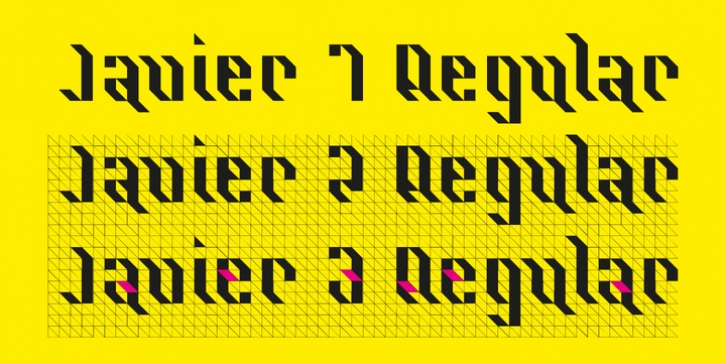
Ps Javier downloadDesigner: Peter Slager
Publisher: Fontopia
The font is named after my son Javier. He studies architecture. Font Javier follows architectural principles.
Javier 1, Javier 2 and Javier 3 can be combined with each other.